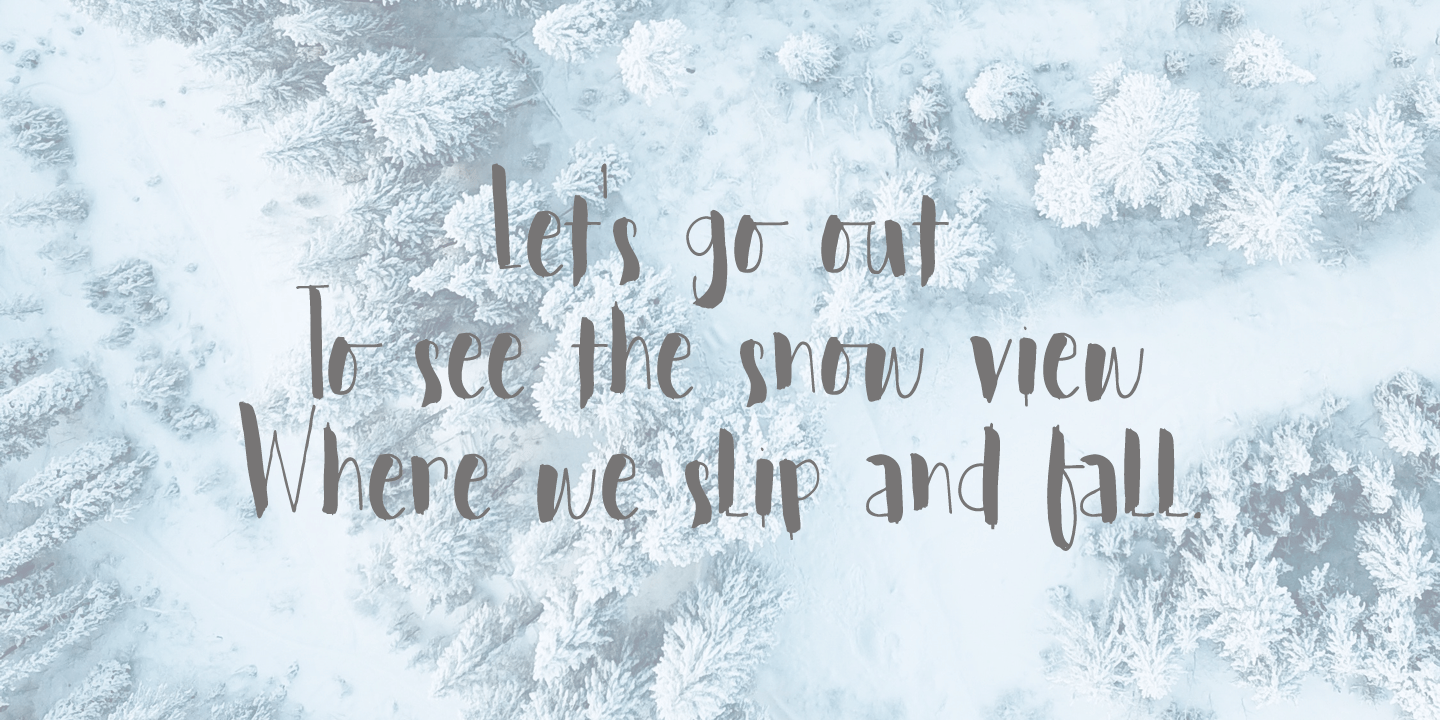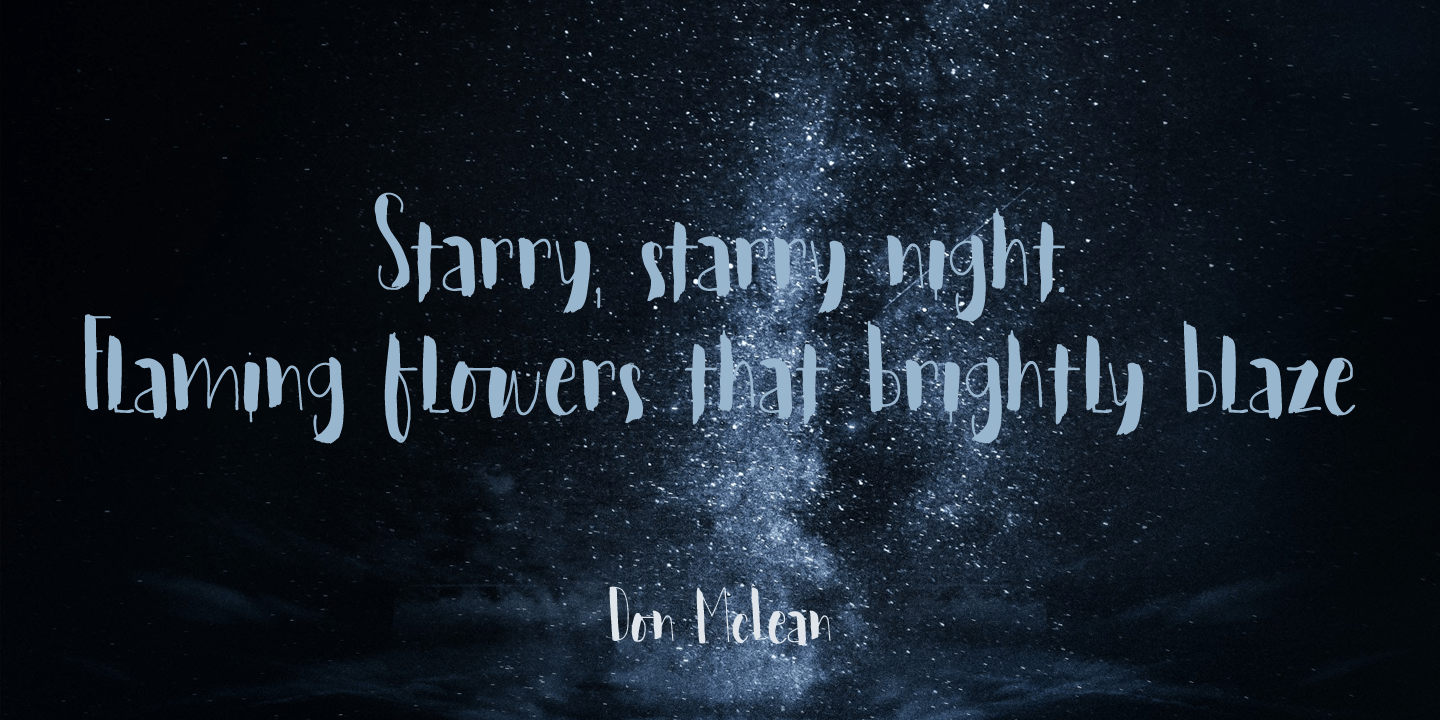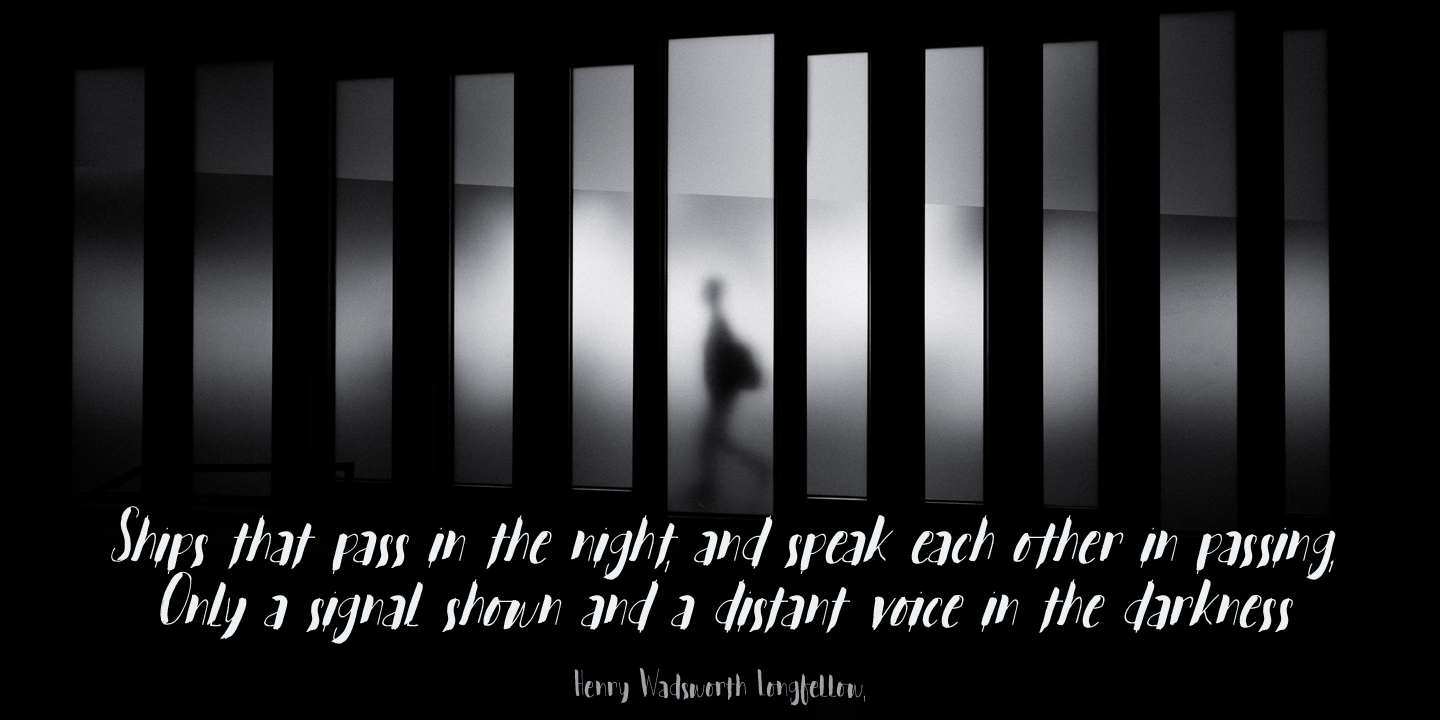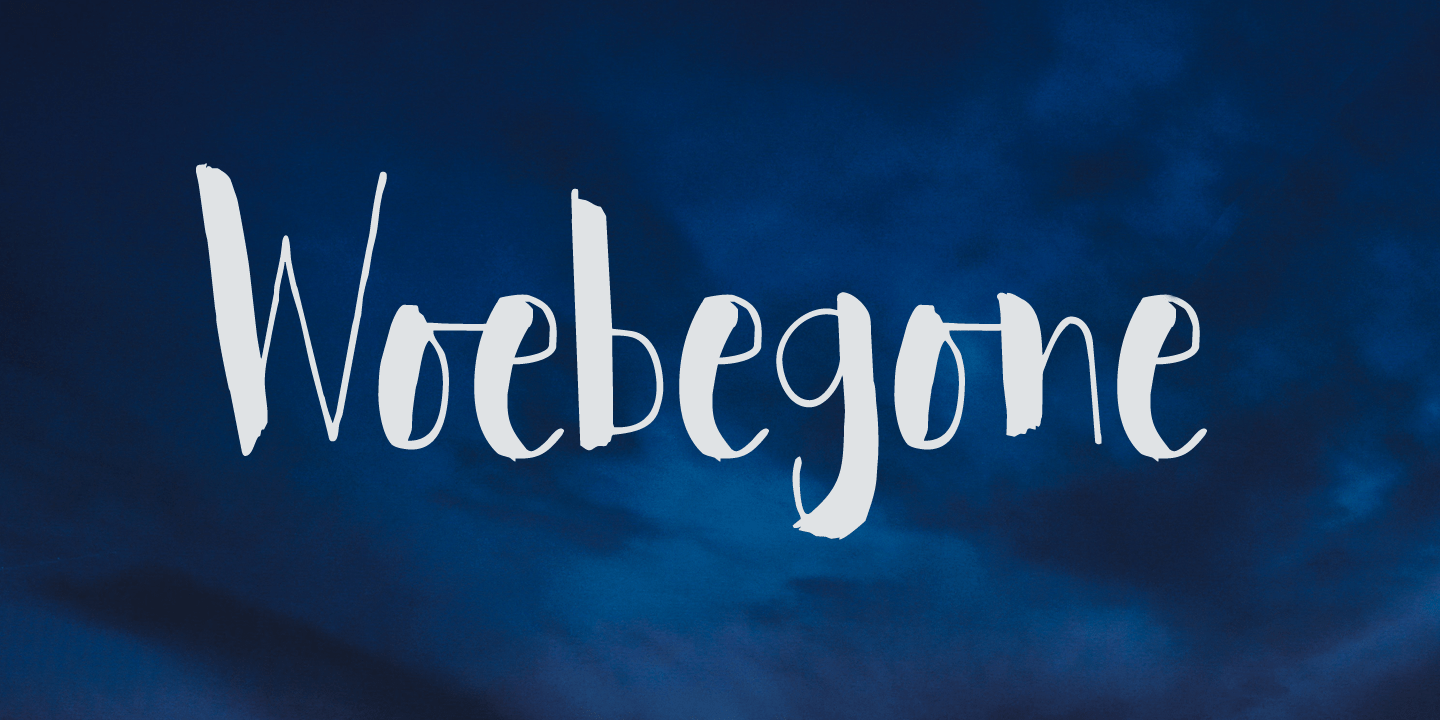
Woebegone
About Woebegone
Woebegone is a cute little handmade font. I started off by drawing the glyphs with a Pilot pen, then added some strokes with a Japanese brush pen. Woebegone comes in Regular and Italic and has all the accents you need.